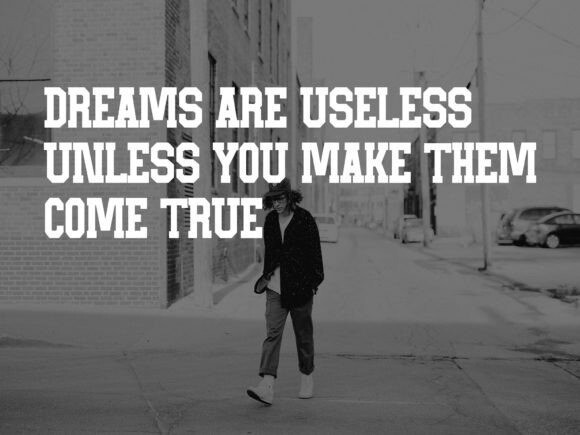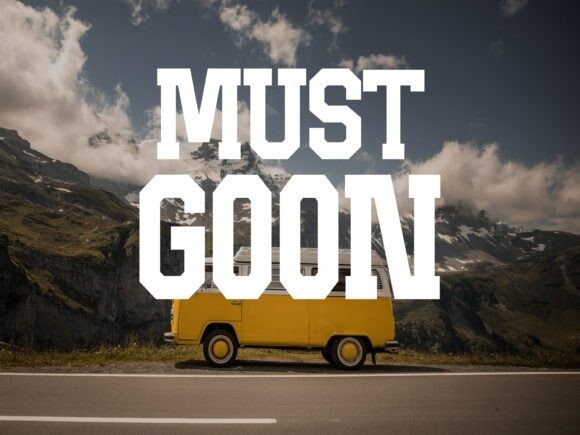
Bygone Font
Bygone Font is a bold, vintage-style serif display font that embodies the essence of classic typography. Its robust letterforms and intricate details transport you to a bygone era, evoking a sense of nostalgia and charm. Perfect for vintage-themed designs, editorial layouts, or branding with a retro touch, Bygone adds a timeless elegance and sophistication to any project.